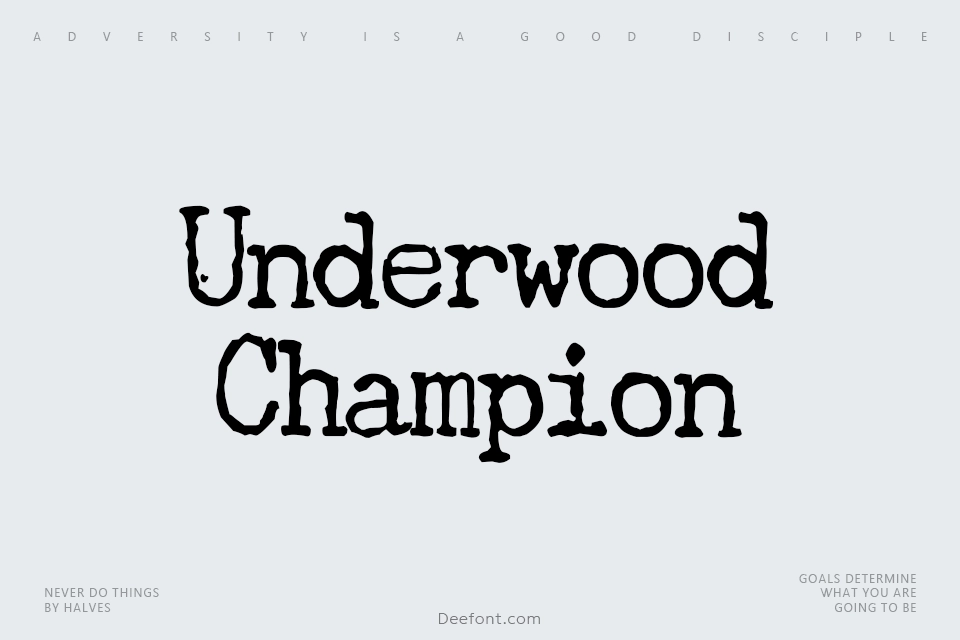
Underwood Champion Font
Underwood Champion is a distinctive slab serif typewriter font that captures the authentic essence of vintage typewritten text. Designed by Vic Fieger, this retro typeface features distressed and eroded letterforms, delivering a confident and bold aesthetic perfect for posters, vintage-themed designs, editorial layouts, and creative branding projects. The font’s robust character set includes mixed-case letters, numbers, and comprehensive punctuation marks, supporting 41 languages and making it ideal for diverse creative applications from vintage books to modern websites.